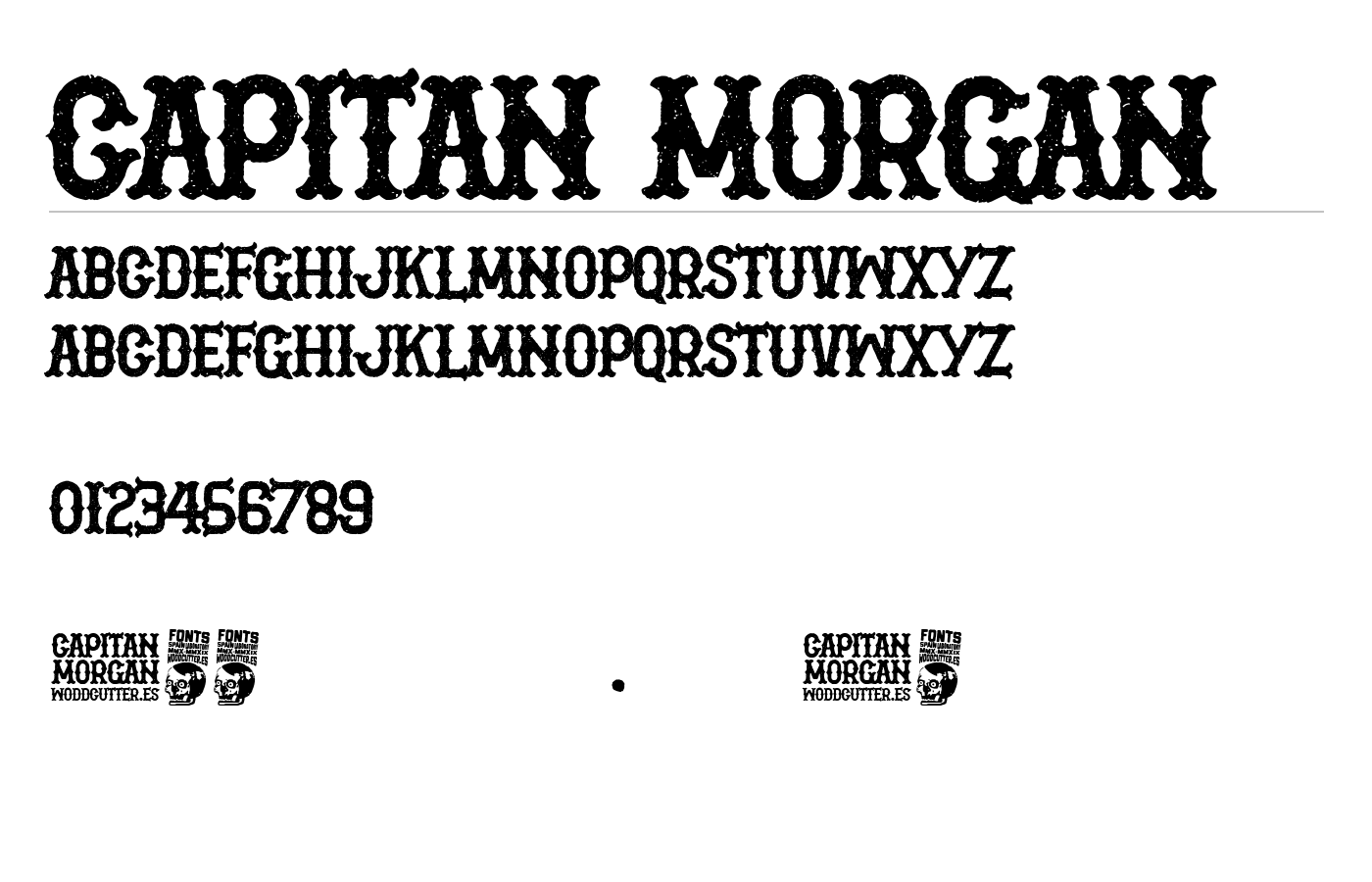
Capitan Morgan is a bold, vintage slab serif font with a distressed texture that evokes an old Western or pirate-era feel. Its sturdy, condensed letterforms combined with rough edges and thick, bracketed serifs create a strong, rugged character perfect for designs that want to convey adventure, nostalgia, or rustic charm. This font works best for logos, posters, and packaging that seek a bold, classic statement with a touch of playful grit.
Capitan Morgan Font
About Capitan Morgan Font